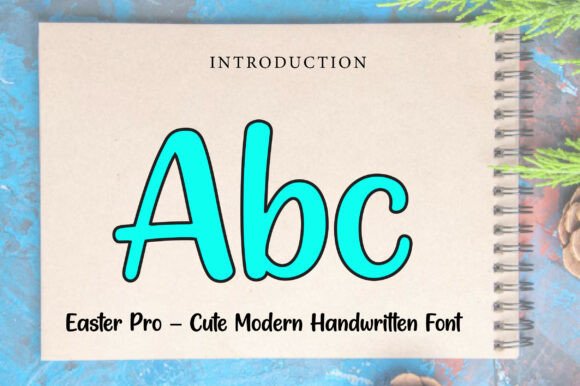
Easter Pro Font: The Perfect Choice for Joyful Storytelling This Season
As the Easter season approaches, designers and crafters are on the lookout for the perfect font to capture the playful spirit of the holiday. Look no further than Easter Pro, a modern handwritten font that embodies the cheer and joy of the season. With its thick, rounded letterforms and bouncy rhythm, Easter Pro is the ideal choice for creating engaging and festive designs that will delight audiences of all ages.
A Cute and Modern Handwritten Font
Easter Pro is a carefully crafted typeface that features a unique “cheerful-doodle” soul. Its hand-drawn weight and rounded letterforms give it a friendly and approachable feel, making it perfect for designs that require a personal touch. The font’s modern aesthetic ensures that it will stand out in a crowded design landscape, while its clear legibility makes it easy to read and understand.
Ideal for Holiday Stationery and Classroom Materials
Easter Pro is the premier choice for independent holiday stationery, creative classroom materials, and boutique spring event branding. Its vibrant personality and playful vibe make it perfect for creating eye-catching designs that will capture the attention of kids and adults alike. Whether you’re designing Easter cards, creating educational materials, or promoting a spring event, Easter Pro is the perfect font to bring your designs to life.
Engage Your Audience with Easter Pro on Social Media
In addition to its use in print designs, Easter Pro is also perfect for creating engaging social media assets. Its clear legibility and modern aesthetic make it ideal for use in “family-vlog” style social media posts, where you want to share your story and connect with your audience. With Easter Pro, you can create eye-catching graphics and videos that will delight your followers and help you build a strong brand identity.
Key Features of Easter Pro
- Thick, rounded letterforms: Give your designs a friendly and approachable feel with Easter Pro’s unique letterforms.
- Bouncy rhythm: Add energy and movement to your designs with Easter Pro’s playful rhythm.
- Clear legibility: Ensure that your message is understood by all with Easter Pro’s easy-to-read font.
- Modern aesthetic: Stand out in a crowded design landscape with Easter Pro’s fresh and modern look.
- Hand-drawn weight: Add a personal touch to your designs with Easter Pro’s hand-drawn feel.
Tips for Using Easter Pro in Your Designs
To get the most out of Easter Pro, try pairing it with complementary fonts to create visual interest. You can also experiment with different colors and textures to add depth and dimension to your designs. For a bold look, try using Easter Pro in a large size, or use it in a smaller size for a more subtle effect.
Easter Pro is the perfect font for designers and crafters looking to capture the playful spirit of the Easter season. With its unique blend of modern style and hand-drawn charm, Easter Pro is ideal for creating engaging and festive designs that will delight audiences of all ages. Whether you’re designing holiday stationery, classroom materials, or social media assets, Easter Pro is the premier choice for joyful storytelling this season.
Get Ready to Hop into the Easter Spirit with Easter Pro!